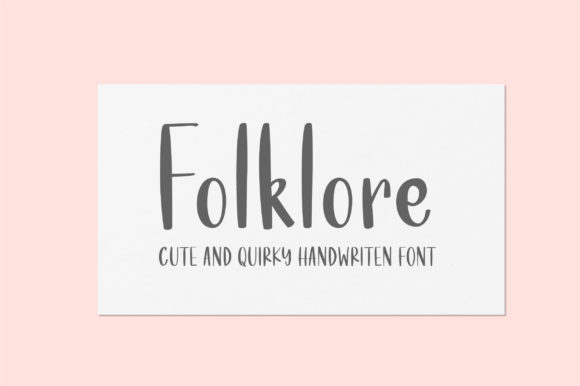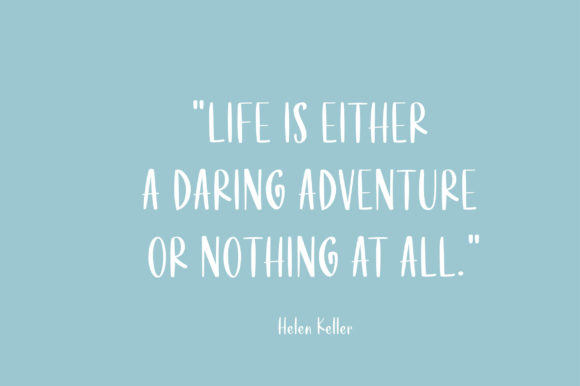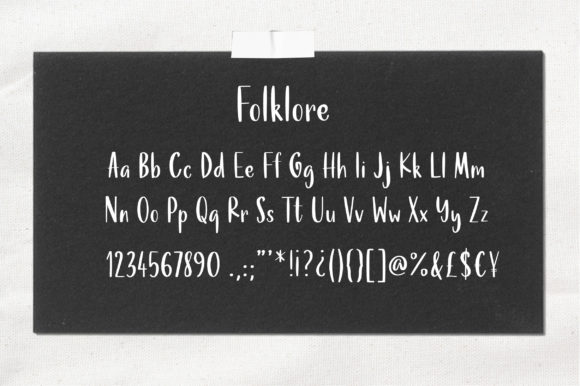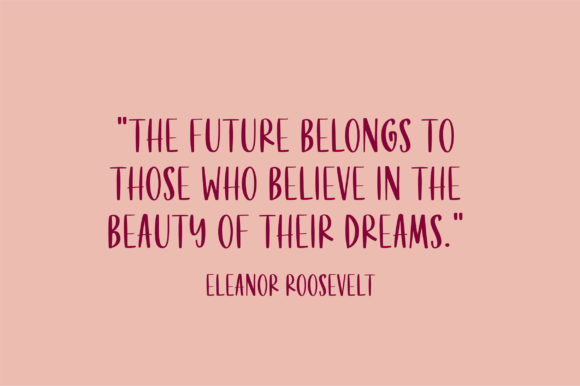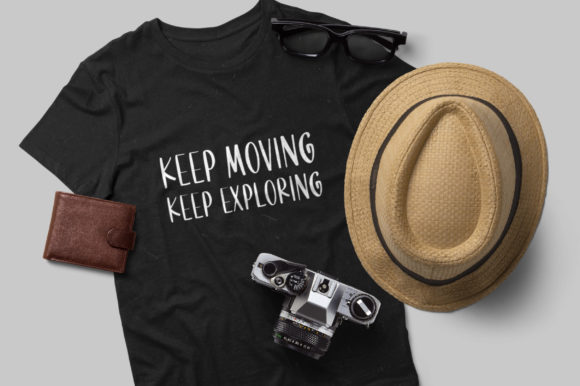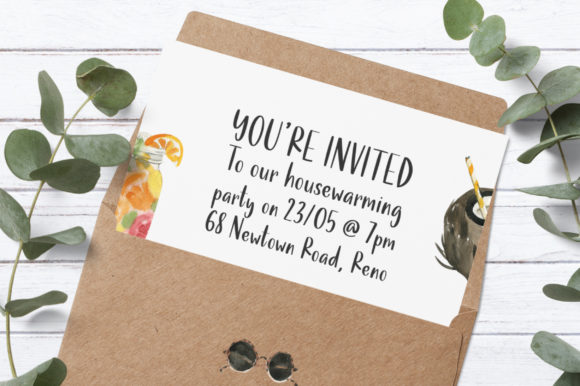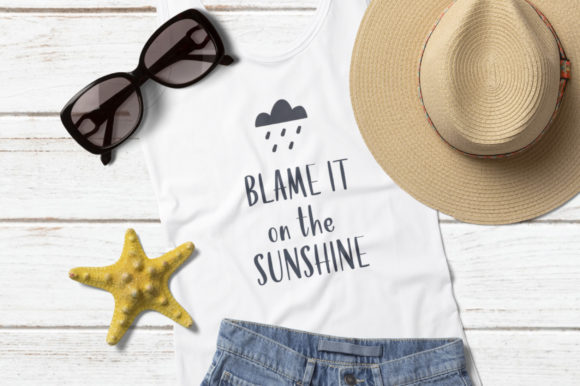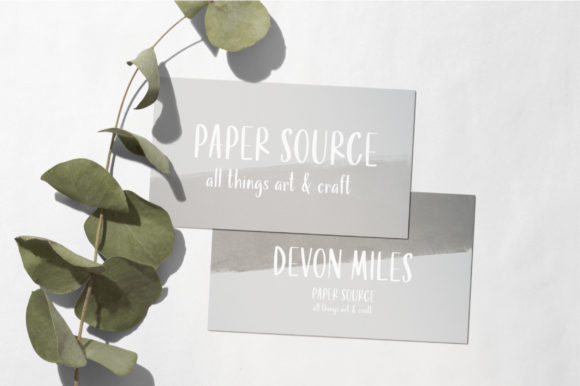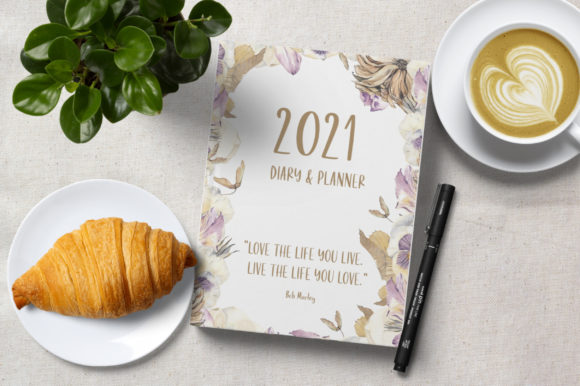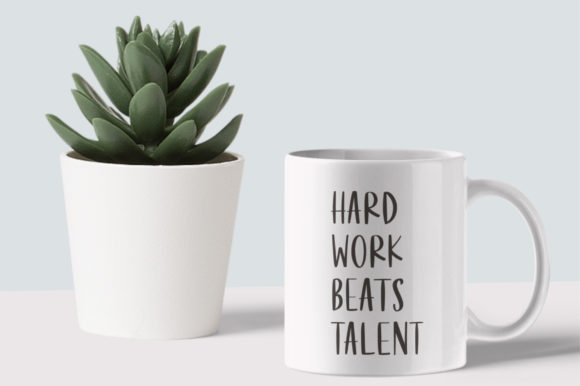
Folklore Font
About Folklore Font
Folklore is a cute and tall handwritten font. It is defined by smooth curves and is perfect for fashion branding or editorial designs. Add it confidently to your projects, and you will love the results.